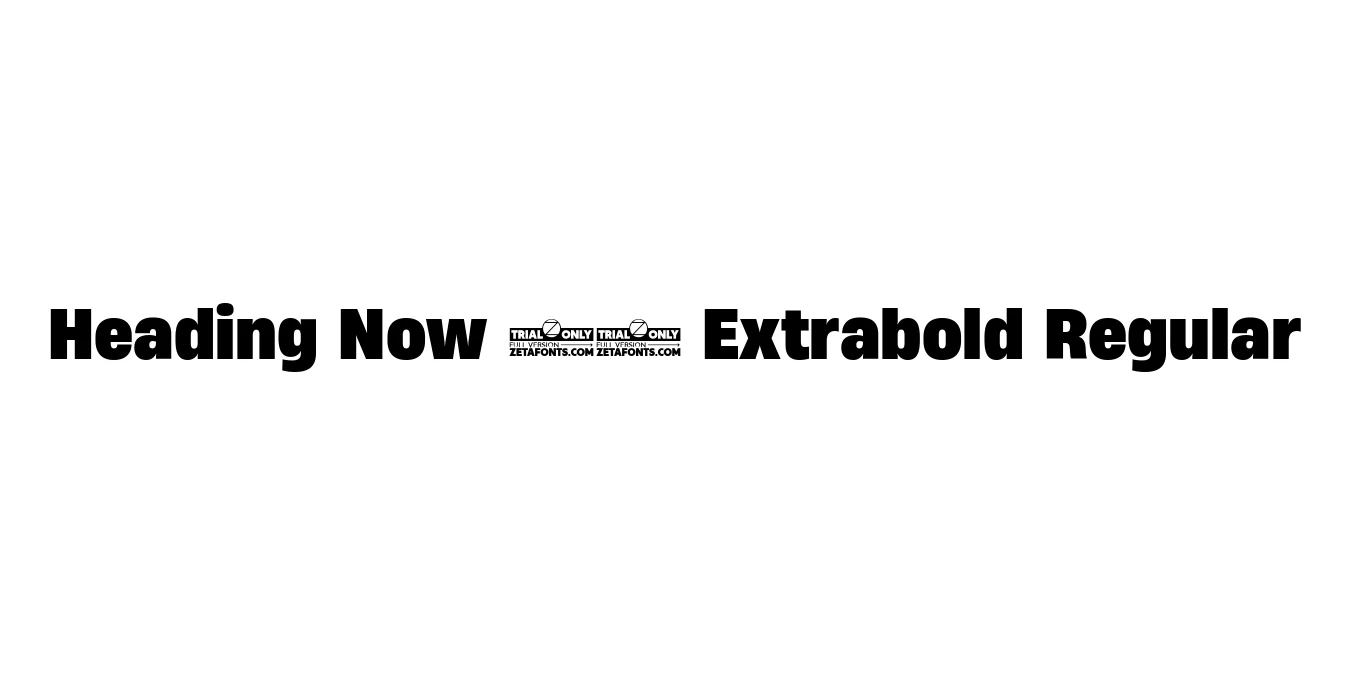
Heading Now 67 Extrabold Regular
Designed by Francesco Canovaro
Heading Now is an expansive sans-serif typeface family designed by Francesco Canovaro for Zetafonts. As an evolution of the original Heading Pro design, this font family was developed to provide a comprehensive range of widths and weights, catering to the diverse needs of modern editorial design and digital branding. The Heading Now 67 Extrabold Regular variant sits at a sweet spot of visual weight, offering a powerful, authoritative presence without sacrificing the clean, geometric lines that define the family.
This typeface excels in display typography and high-impact layouts where clarity and character are paramount. Its design takes inspiration from Swiss-style minimalism but incorporates contemporary features for better legibility on high-resolution screens. Whether used for bold headlines, corporate identities, or complex UI elements, Heading Now provides a sophisticated and versatile solution for designers looking to balance functionality with a strong modern aesthetic.
Heading Now 67 Extrabold Regular Best Uses
Perfect for high-impact titles and newspaper headers that need to command attention.
Ideal for creating strong, recognizable logos and corporate visual identities.
Works exceptionally well for large-scale print advertisements and digital banners.
Provides excellent legibility for punchy, modern interface elements and buttons.